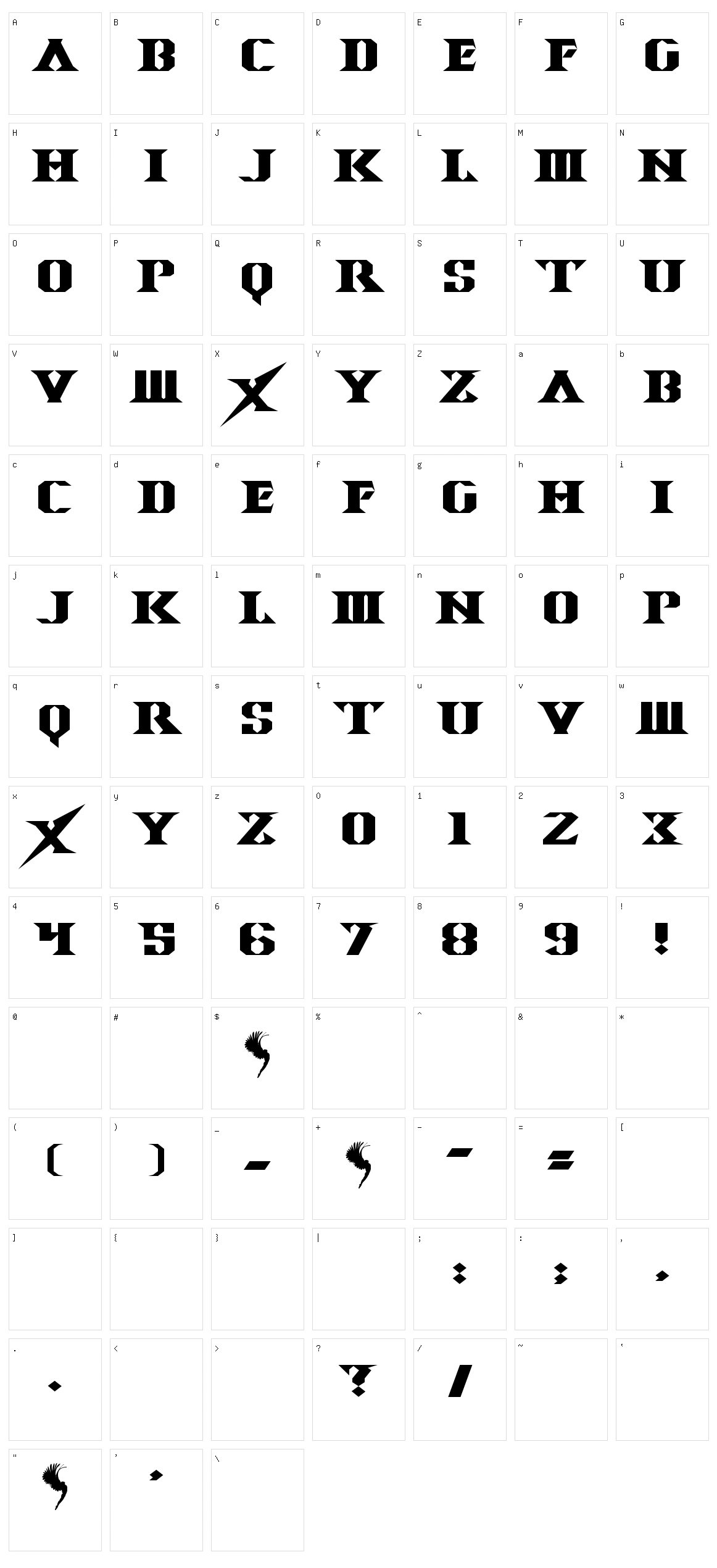
Space Angel
After nearly 15 years since my last font your friend and humble designer is back in action. This is my first one in a very long time. Unlike many of my previous "famous" fonts this one
was plucked from the sky or shall we say the stars. The contours and pointy nature of Space Angel is sharp and futuristic with the X resembling a star. The # and " will give you an angel. The
capitals double as lowercase letters and there's limited punctuation because this wasn't designed to have a full character set.
Space Angel Character Set